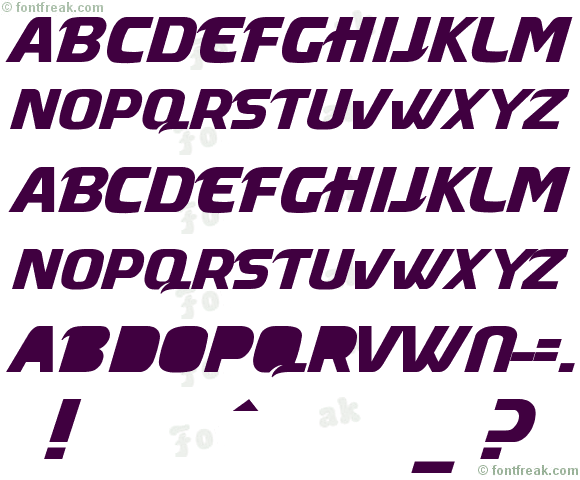
Masque
About Masque
Masque, a distinctive font designed by Apostrophic Labs in 2001, is a captivating display typeface that adds an artistic flair to any project. This font falls into the decorative category, characterized by its bold, contemporary design. The stroke weight is substantial, providing a commanding presence, while the contrast between thick and thin lines adds an engaging visual dynamic. The spacing is well-balanced, ensuring readability without sacrificing style. Its unique design elements make it visually striking, with sharp angles and geometric forms that infuse a sense of modernity.
Masque is particularly well-suited for a variety of creative applications. It excels in wedding invitations where a touch of sophistication is desired, and its boldness makes it an excellent choice for movie posters that aim to grab attention. Restaurant menus can also benefit from its artistic flair, making the dining experience feel more upscale and inviting. Additionally, Masque works wonderfully for branding projects, allowing small business owners to establish a memorable identity that stands out in a crowded market. Graphic designers and content creators will find this font versatile enough to enhance both digital and print materials, adding an element of intrigue to their work.
What sets Masque apart is its ability to blend bold aesthetics with functionality. This font not only captures attention but also communicates messages effectively, making it an invaluable tool for anyone looking to elevate their designs. With Masque font free download available, users can easily incorporate this striking typeface into their projects without any financial commitment. Its unique characteristics and versatility make it a noteworthy addition to any designer's toolkit, ensuring that your creations leave a lasting impression.